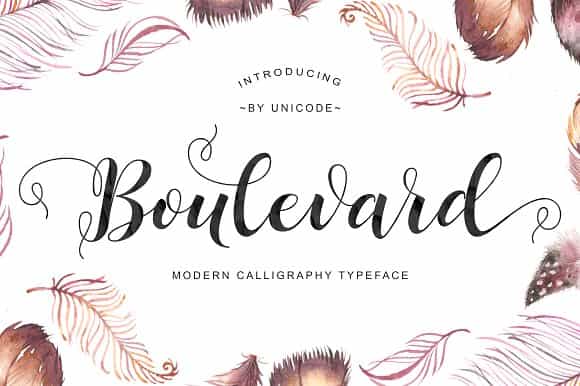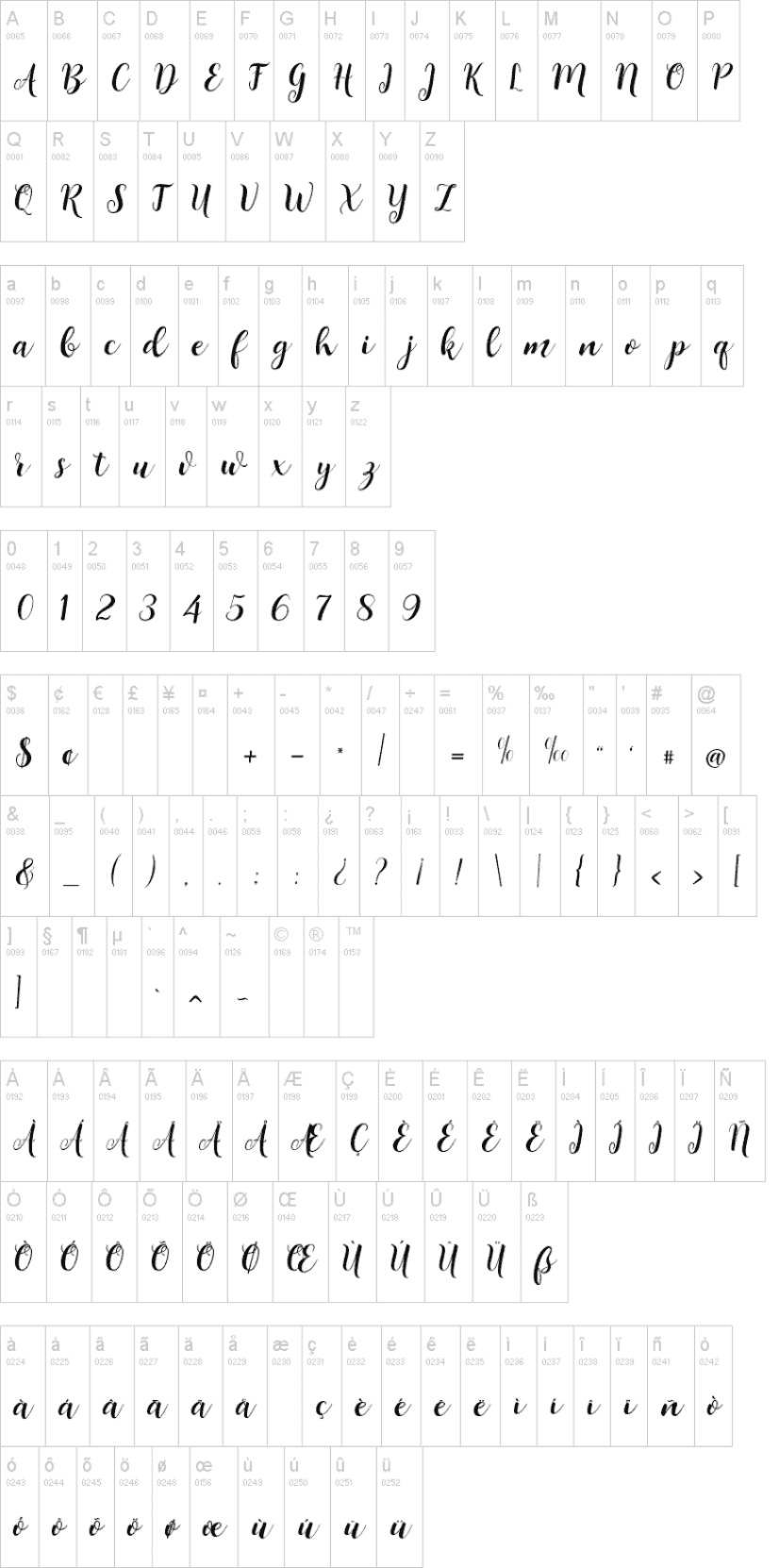
Boulevard is a beautiful and elegantly crafted font style that falls under the category of Calligraphy fonts created by Unicode Studio at this moment it is freely available for personal use. The free version allows for typing of all alphabetical letters both large and small plus a few other symbols to boot.